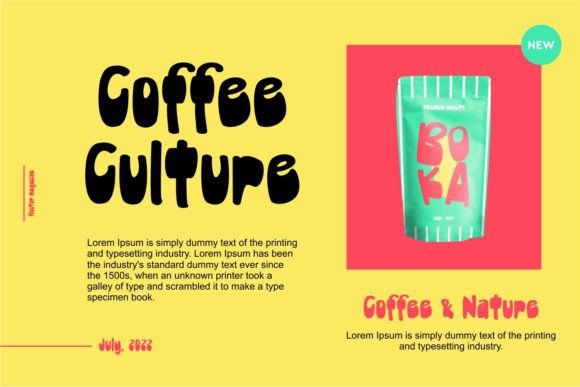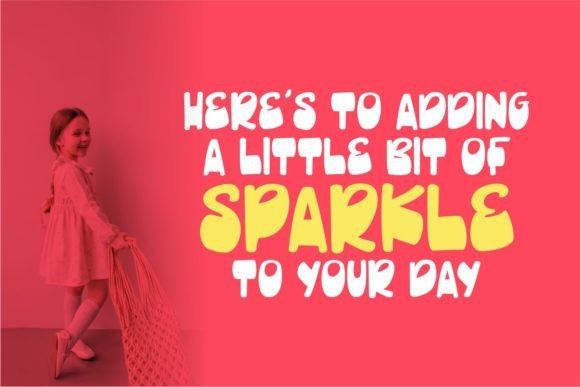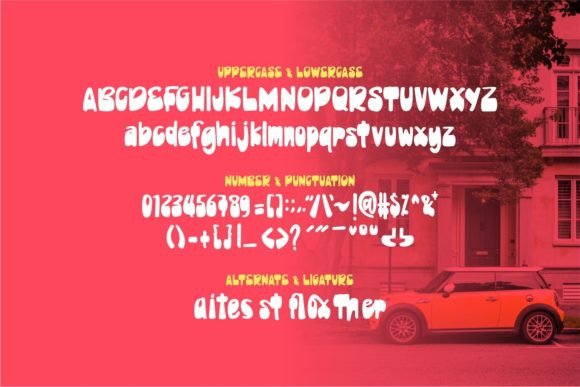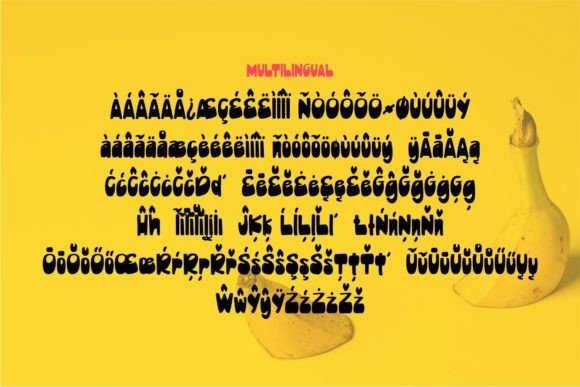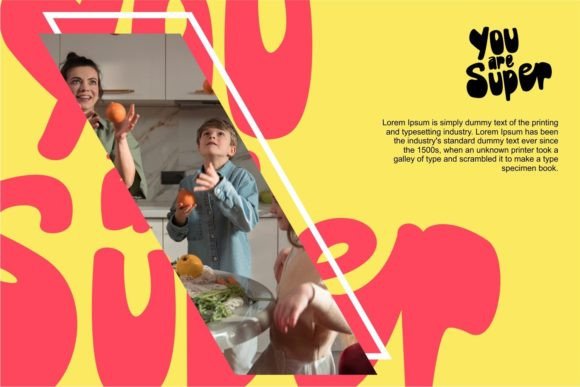
Bifloster Font: The Ultimate Retro Display Font for Creative Projects
Are you a designer or crafter looking for a font that can add a touch of retro charm to your creative projects? Look no further than Bifloster Font. This bold and cool display font is perfect for a wide range of applications, from posters and flyers to logos and branding materials. With its groovy vibe and versatility, Bifloster Font is sure to become a staple in your design toolkit.
What is Bifloster Font?
Bifloster Font is a display font designed to make a statement. Its bold, chunky letters are reminiscent of the classic typography of the 1960s and 1970s, with a modern twist that makes it perfect for contemporary design projects. Whether you’re looking to create a vintage-inspired logo, a retro-style poster, or a funky social media graphic, Bifloster Font is the perfect choice.
Key Features of Bifloster Font
- Bold and eye-catching: Bifloster Font is designed to grab attention. Its bold, chunky letters are perfect for creating eye-catching headlines and titles.
- Retro vibe: Bifloster Font has a distinctly retro feel that’s perfect for creating vintage-inspired designs.
- Versatile: Bifloster Font can be used for a wide range of applications, from posters and flyers to logos and branding materials.
- Easy to read: Despite its bold and chunky design, Bifloster Font is surprisingly easy to read, making it perfect for use in a variety of contexts.
Uses for Bifloster Font
Bifloster Font is a versatile font that can be used for a wide range of creative projects. Here are just a few ideas to get you started:
- Posters and flyers: Bifloster Font is perfect for creating eye-catching posters and flyers that will grab attention.
- Logos and branding: Bifloster Font can be used to create bold and memorable logos and branding materials.
- Social media graphics: Bifloster Font is perfect for creating funky social media graphics that will help you stand out from the crowd.
- Packaging design: Bifloster Font can be used to create bold and eye-catching packaging designs that will help your product stand out on store shelves.
Tips for Using Bifloster Font
Here are a few tips for getting the most out of Bifloster Font:
- Use it sparingly: Bifloster Font is a bold font, so it’s best to use it sparingly to avoid overwhelming your design.
- Pair it with a simple font: Bifloster Font works best when paired with a simple font. Try pairing it with a clean sans-serif font for a bold and modern look.
- Experiment with colors: Bifloster Font looks great in a variety of colors. Try experimenting with different colors to find the perfect look for your design.
Bifloster Font is a bold and cool display font that’s perfect for a wide range of creative projects. With its retro vibe and versatility, it’s sure to become a staple in your design toolkit. Whether you’re a designer or crafter, Bifloster Font is a great choice for anyone looking to add a touch of retro charm to their designs.